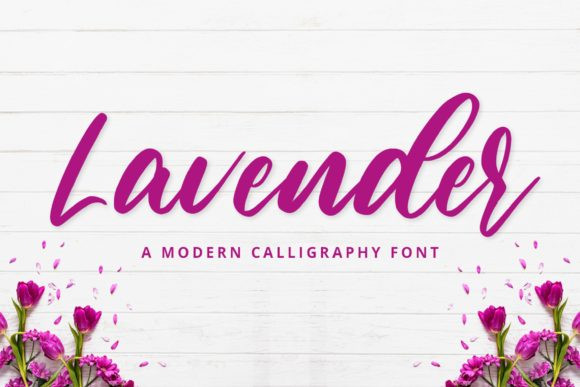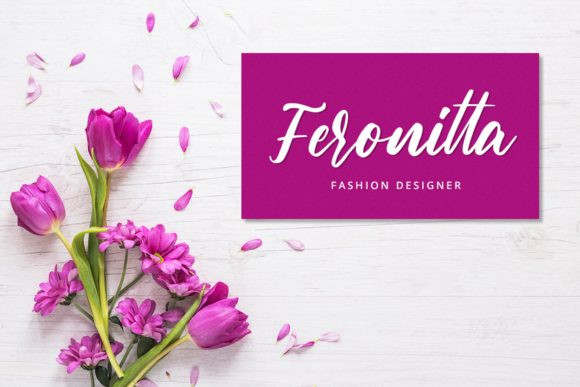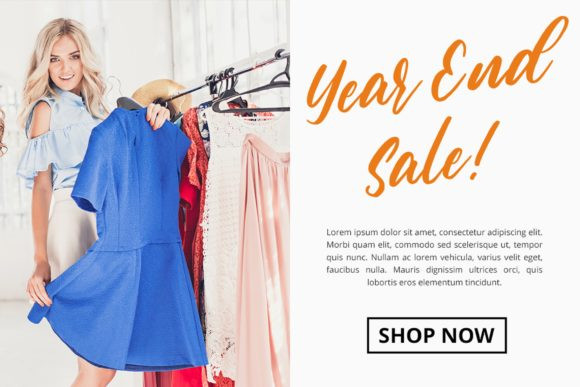
Lavender Font
Lavender is a casual and flowing handwritten font. With its neat and beautiful arrangement of letters, this typeface will look outstanding in both formal and non-formal designs.